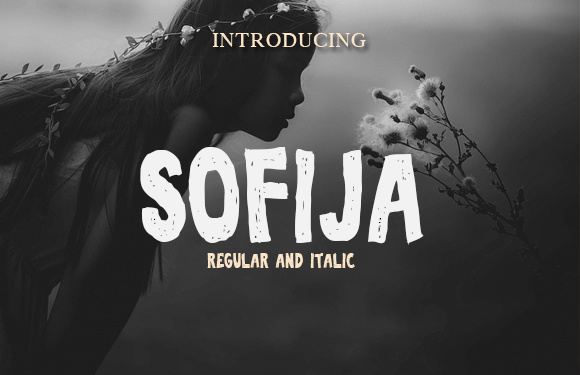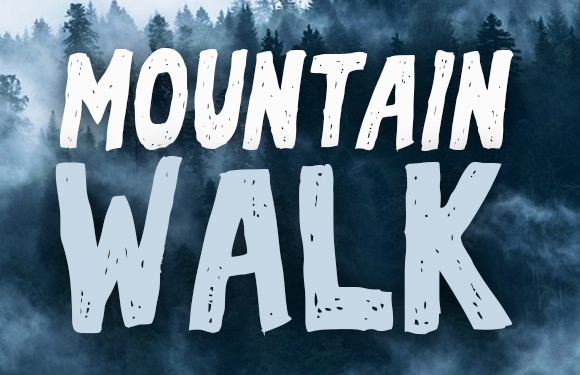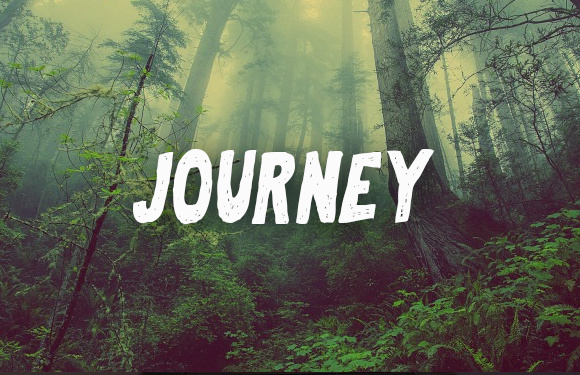
Sofija Font
About Sofija Font
Sofija is a beautiful handcrafted font that comes in Regular and Italic. It is perfect for posters, logos and much more.